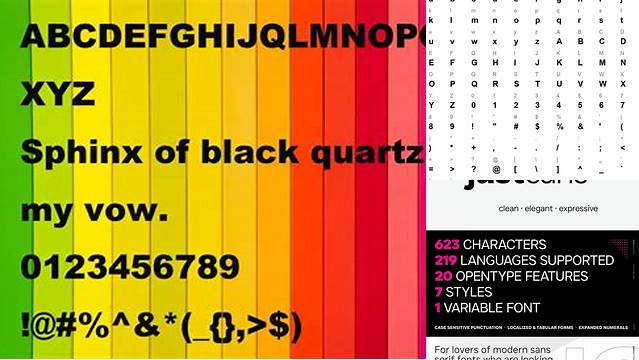
Free Arial Font Download & Alternatives For Designers
Are you looking to download free fonts, especially the ever-popular Arial? Well, you've come to the right place! In this article, we'll dive deep into the world of fonts, focusing on Arial, its history, uses, and where you can find it. Plus, we'll explore some fantastic alternatives if you're looking to spice things up a bit. So, let's get started, guys!
What Makes Arial So Popular?
Arial, a ubiquitous sans-serif typeface, has become a staple in the design world. But why is Arial so popular? Let's break it down. Arial's clean and legible design makes it a go-to choice for a wide range of applications. From body text in books and articles to headlines and signage, Arial's versatility shines through. Its neutrality ensures it doesn't distract from the content, making it ideal for professional documents, websites, and presentations. Originally designed by Patricia Saunders and Robin Nicholas in 1982, Arial was created to be metrically compatible with the widely used Helvetica font. This was particularly important for IBM's laser printers, as it allowed documents to be printed correctly without requiring adjustments. The clever design ensured that Arial could replace Helvetica without causing formatting issues, making it a practical choice for many businesses and individuals. Over the years, Arial has been bundled with Microsoft Windows, further solidifying its presence on computers worldwide. This widespread availability has made it a default option for many users, contributing to its massive popularity. Its clear and straightforward letterforms make it easy to read on screen, which is crucial in the digital age. Arial’s consistent stroke weight and simple shapes contribute to its legibility, making it a reliable choice for both print and digital media. Moreover, Arial supports a broad range of characters and languages, making it suitable for international use. This is a significant advantage for businesses and organizations that need to communicate with a global audience. The font’s extensive character set ensures that messages are conveyed accurately, regardless of the language. The neutrality of Arial’s design also means it pairs well with a variety of other fonts. It can be used effectively alongside both serif and sans-serif typefaces, providing designers with flexibility in their projects. Whether you’re creating a formal document or a modern website, Arial can seamlessly fit into your design scheme. The font's adaptability extends to different design styles, from minimalist to more elaborate layouts. Its clean lines and unadorned appearance make it a versatile choice for various branding and marketing materials. Arial’s ability to maintain its clarity and readability across different sizes and mediums makes it a dependable option for designers and content creators. In summary, Arial's popularity stems from its versatility, legibility, compatibility, and widespread availability. It's a reliable and practical choice that continues to be a favorite among professionals and casual users alike. Whether you’re drafting an important email, designing a website, or creating marketing materials, Arial is a font that you can count on to deliver a professional and readable result.
Arial Font Alternatives: Exploring Your Options
Okay, so you're looking for alternatives to Arial? Great choice! While Arial is a solid, dependable font, exploring alternatives can add a unique touch to your projects. There's a whole world of sans-serif fonts out there that offer similar readability and versatility, but with their own distinctive personalities. Let's dive into some fantastic options. One of the most popular alternatives is Helvetica. In fact, Arial was initially designed to be a substitute for Helvetica on systems where Helvetica wasn't available. Helvetica is known for its clean, modern look and excellent legibility. It's a classic choice for everything from corporate branding to editorial design. If you like the simplicity of Arial but want something with a bit more character, Helvetica is a great place to start. Another excellent option is Open Sans. This font was designed with readability in mind, making it perfect for websites and apps. Open Sans has a slightly wider stance than Arial, which some people find easier on the eyes, especially for longer blocks of text. Plus, it's a Google Font, which means it's free to use for both personal and commercial projects. Google Fonts, by the way, is a treasure trove of free, high-quality fonts. If you haven't explored it yet, I highly recommend checking it out! Roboto is another fantastic Google Font that’s worth considering. It has a modern, geometric feel and is incredibly versatile. Roboto is often used in Android operating systems, so you've probably seen it around. It works well for both headlines and body text, making it a solid choice for a wide range of projects. If you're looking for something a bit softer and more rounded, consider Lato. This font has a warm, friendly vibe while still maintaining excellent readability. Lato is a great option for websites, logos, and branding materials where you want to convey a sense of approachability. For a more classic, elegant feel, check out Univers. This font has been around for decades and is still a favorite among designers. Univers has a clean, neutral appearance, similar to Arial and Helvetica, but with its own distinct character. It's a great choice for projects that need a timeless, sophisticated look. If you're working on a project that requires a strong, impactful font, consider Montserrat. This font has a bold, geometric design that's perfect for headlines and branding. Montserrat is also a Google Font, so it's freely available and easy to use. Exploring these alternatives can really elevate your designs and help you create a unique visual identity. Each font has its own personality and strengths, so take the time to experiment and see what works best for your specific needs. Remember, choosing the right font can make a big difference in how your message is received, so have fun exploring your options and finding the perfect fit!
Arial vs. Helvetica: The Great Font Debate
The battle of the fonts! Arial vs. Helvetica is a classic debate in the design world, guys. These two sans-serif typefaces are often compared, and for good reason. They look remarkably similar at first glance, but there are subtle differences that can make a big impact on your design. Let's break down the key distinctions and see why this debate is so heated. First, let's talk about history. Helvetica was designed in 1957 by Max Miedinger and Eduard Hoffmann in Switzerland. It quickly became a favorite for its clean, modern appearance and excellent legibility. Helvetica was designed with neutrality in mind, making it a versatile choice for a wide range of applications. Arial, on the other hand, was created in 1982 by Patricia Saunders and Robin Nicholas at Monotype. As we mentioned earlier, Arial was designed to be metrically compatible with Helvetica, primarily for IBM's laser printers. This means that Arial was created to fit within the same space as Helvetica, so documents could be printed correctly without requiring adjustments. So, Arial was, in a way, designed to be a Helvetica substitute. But here's where the debate comes in. While Arial and Helvetica share many similarities, there are subtle differences in their letterforms that designers often notice. One of the most notable differences is the diagonal cut on the lowercase 't'. In Helvetica, the 't' is cut straight across, while in Arial, it's cut at an angle. This small detail can subtly affect the overall appearance of the text. Another key difference is the shape of the capital 'G'. In Helvetica, the spur (the little horizontal stroke) is more pronounced, while in Arial, it's less so. This gives Helvetica a slightly more elegant, refined look. The curves in Helvetica are also generally considered to be smoother and more refined than those in Arial. Helvetica has a more consistent stroke weight and a more harmonious overall appearance. These subtle differences can add up, especially when you're working on a project where typography is crucial. Many designers prefer Helvetica for its classic, timeless quality and its ability to convey a sense of professionalism and sophistication. However, Arial is still a widely used and perfectly acceptable font, especially for projects where legibility and practicality are paramount. Arial's widespread availability and its compatibility with various systems and software make it a reliable choice for many users. So, which font is better? There's no definitive answer. It often comes down to personal preference and the specific needs of your project. Some designers are die-hard Helvetica fans and will always choose it over Arial. Others find Arial to be a perfectly suitable alternative, especially given its availability and ease of use. Ultimately, the best font is the one that works best for your project and helps you achieve your design goals. Whether you choose Arial or Helvetica, the key is to use it thoughtfully and effectively.
So, there you have it! We've explored the ins and outs of Arial, discussed where to find free font downloads, and even delved into some fantastic alternatives. Whether you stick with the reliable Arial or venture out into the world of other sans-serif fonts, remember that the key is to choose a font that fits your project's needs and resonates with your audience. Happy designing, guys!